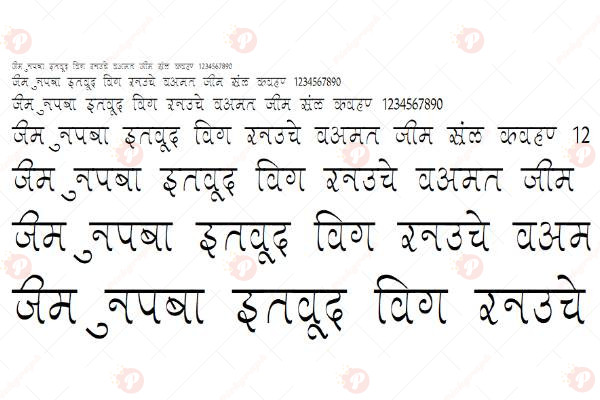
The Aman Condensed Font is a sleek and modern typeface with a narrow, space-saving design. Its condensed letterforms make it perfect for headlines, posters, banners, magazine layouts, logos, and branding projects where you need to fit more text while maintaining style and readability.
Designed for both digital and print media, this font balances elegance with functionality, making it a must-have for creative professionals.
Style: Condensed / Modern Typeface
Perfect for: Headlines, Posters, Banners, Magazines, Branding & Logos
| Optimum Size | Large (Display / Poster) |